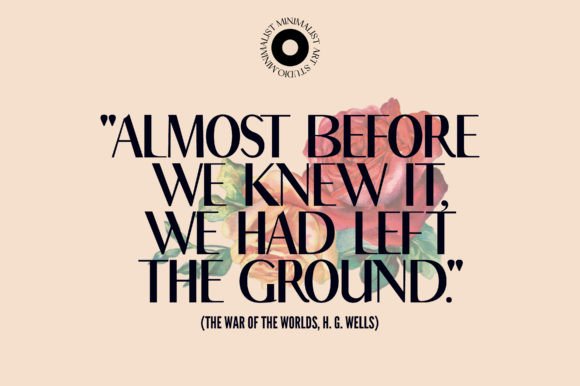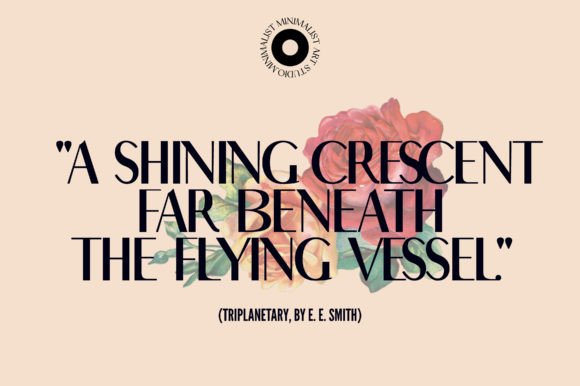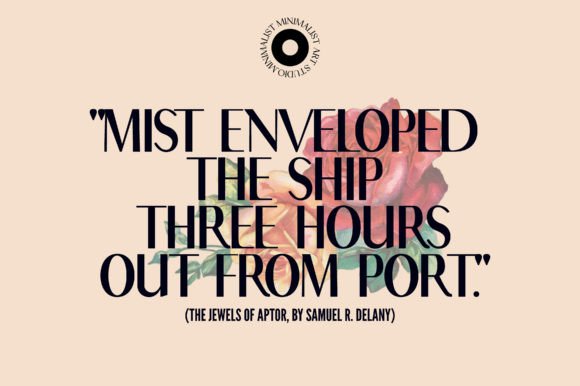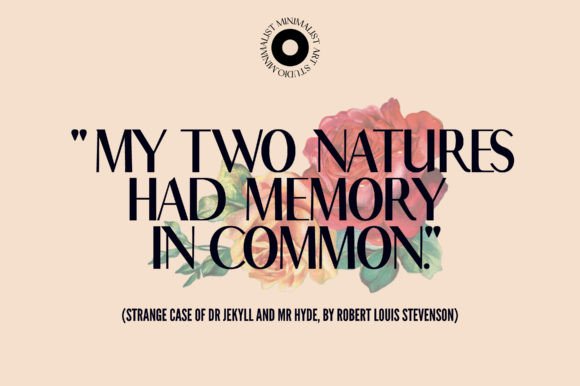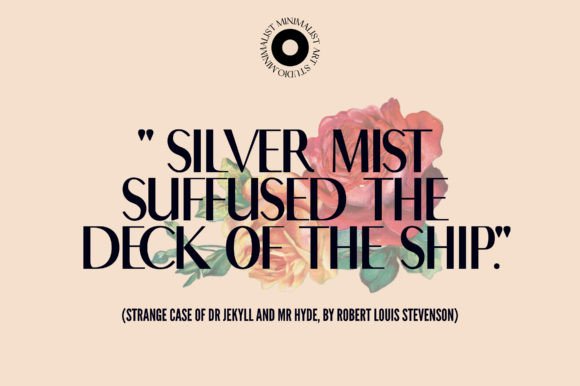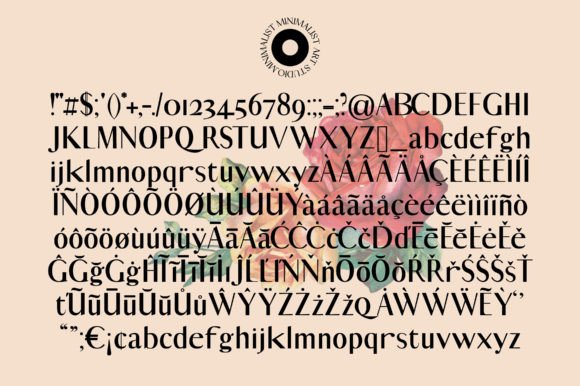
The Designer’s Dream Font: A Deep Dive into Gemma
I still remember the design project that led me to discover Gemma. I was working on a luxury branding campaign for a high-end fashion client, and I was struggling to find the perfect font that exuded elegance and sophistication. The client wanted a font that was not only visually stunning but also versatile enough to work across various design materials, from business cards to billboards. After hours of scouring through font libraries, I stumbled upon Gemma, and it was love at first sight! ✨
An Honest Review of Gemma
Gemma is a stunning sans-serif font that exudes class, chic, and elegance. Here’s what I love about it:
- ✅ Timeless appeal: Gemma’s clean and modern style gives it a timeless appeal that makes it perfect for a wide range of design projects.
- ✨ Sleek lines: The font’s sleek lines and curves make it a joy to work with, and its versatility is unmatched.
- 💯 High-end feel: Gemma’s elegant design makes it perfect for luxury branding, high-end fashion, and editorial layouts.
While Gemma is an amazing font, it’s not perfect. Here are some small quirks to keep in mind:
- 🤔 Limited character set: Gemma’s character set is limited, which can make it challenging to use for projects that require a wide range of special characters.
- ⚠️ Not suitable for body text: Due to its elegant design, Gemma is best suited for headlines and titles. It may not be the best choice for body text, as it can be difficult to read in large blocks.
The Designer Behind Gemma
Gemma was designed by a renowned type designer who wanted to create a font that exuded elegance and sophistication. The designer’s inspiration for Gemma came from the world of luxury fashion and high-end design. The goal was to create a font that was not only visually stunning but also versatile enough to work across various design materials.
| Font Name | Gemma Font |
| Author | Minimalistartstudio |
| What is Gemma best suited for? | Gemma is best suited for luxury branding, high-end fashion, and editorial layouts. |
| Can I use Gemma for body text? | No, Gemma is best suited for headlines and titles. It may not be the best choice for body text, as it can be difficult to read in large blocks. |